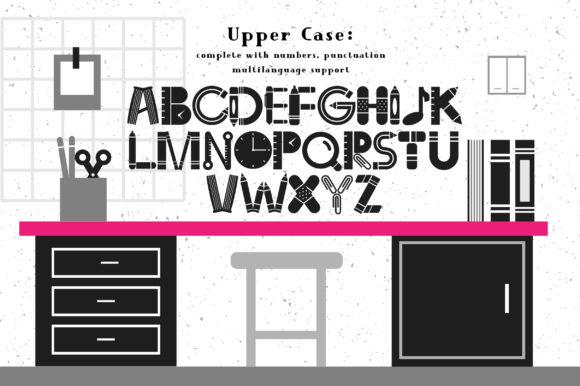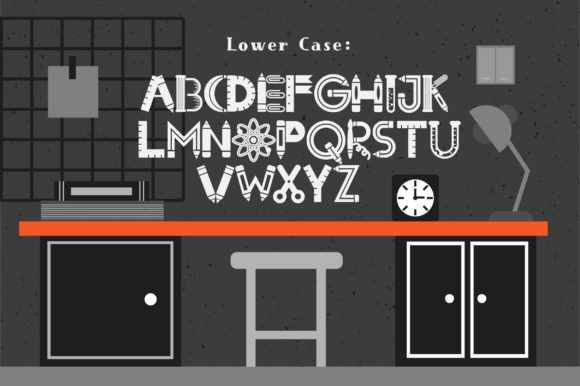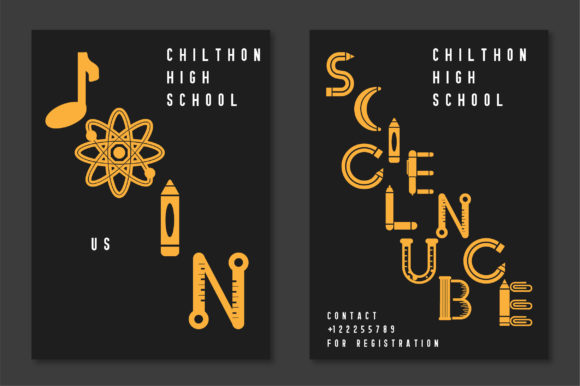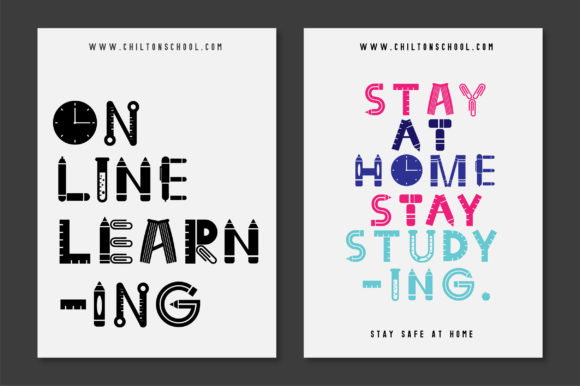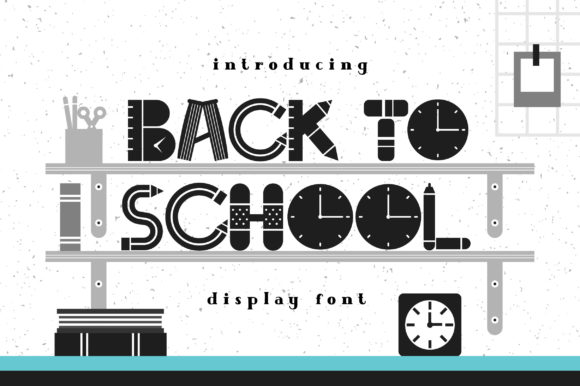
Back to School Font: Add a Touch of Whimsy to Your Designs
As the summer months come to an end, and the new academic year approaches, it’s time to get creative with your designs. Whether you’re a designer, crafter, or educator, you know how important it is to make a statement with your visual projects. That’s where the Back to School Font comes in – an enchanting display font that embodies fun, quirkiness, and authenticity.
The Perfect Font for Kids and School Projects
The Back to School Font is designed to bring a childlike playfulness to your designs. Its unique and quirky style makes it perfect for kids and school projects, adding a touch of whimsy and personality to any creative idea. With this font, you can turn any project into a true standout, making it ideal for:
- Kids’ party invitations and decorations
- School project posters and presentations
- DIY craft projects, such as signs, banners, and cards
- Educational materials, like worksheets and activity sheets
Key Features of the Back to School Font
So, what makes the Back to School Font so special? Here are some of its key features:
- Fun and playful style: The font’s childlike design is sure to bring a smile to anyone’s face.
- Quirky and authentic: The font’s unique style sets it apart from more traditional fonts.
- Display font: The Back to School Font is perfect for headlines, titles, and other display text.
- Easy to read: Despite its playful style, the font remains easy to read, even at smaller sizes.
Tips for Using the Back to School Font
Now that you know more about the Back to School Font, here are some tips for using it in your designs:
- Pair it with other fonts: Combine the Back to School Font with other fonts to create a unique and visually appealing design.
- Experiment with colors: The font’s playful style lends itself well to bright, bold colors.
- Add graphics and illustrations: The Back to School Font pairs perfectly with fun graphics and illustrations.
- Get creative with sizing and layout: Don’t be afraid to experiment with different font sizes and layouts to add visual interest to your design.
Why Designers and Crafters Love the Back to School Font
The Back to School Font has quickly become a favorite among designers and crafters. Here’s why:
- Versatile: The font can be used for a wide range of projects, from kids’ parties to educational materials.
- Unique style: The font’s quirky style sets it apart from more traditional fonts.
- High-quality design: The font is designed to be clear and easy to read, even at smaller sizes.
The Back to School Font is a fun and playful display font that’s perfect for adding a touch of whimsy to your designs. With its quirky and authentic style, it’s ideal for kids and school projects, as well as any creative idea that needs a bit of personality. Whether you’re a designer, crafter, or educator, this font is sure to become a favorite in your collection.